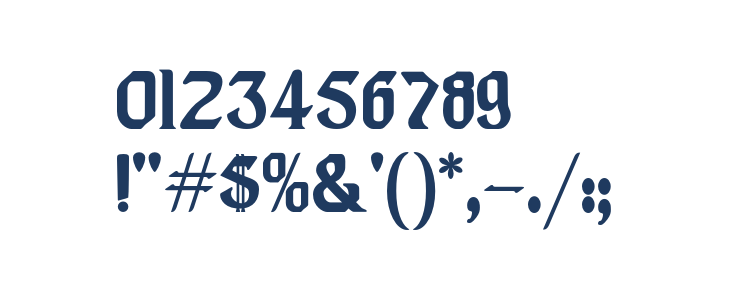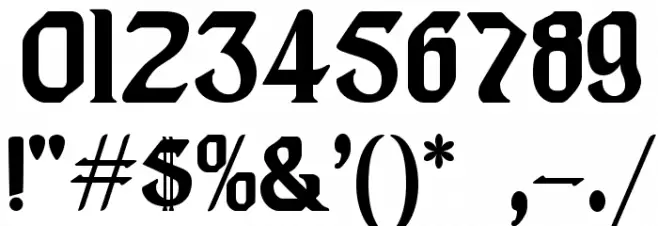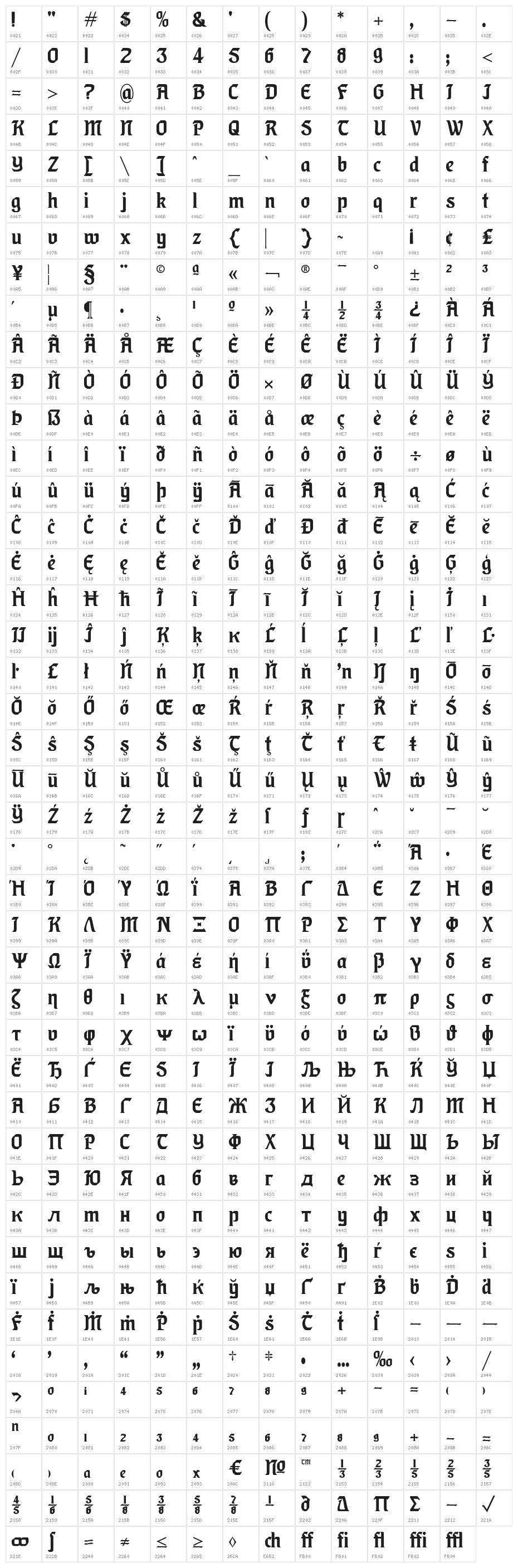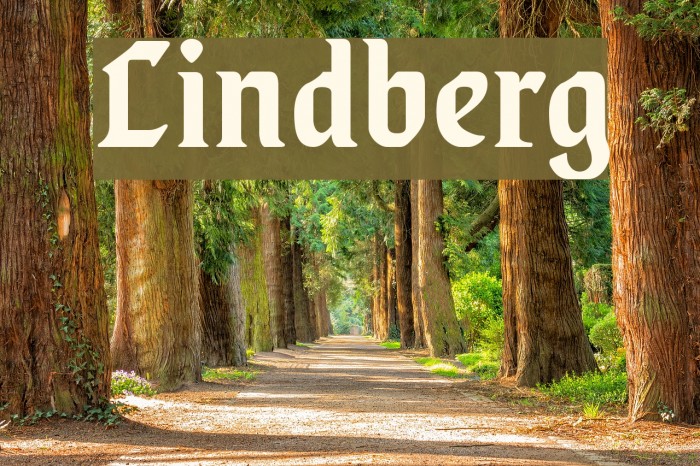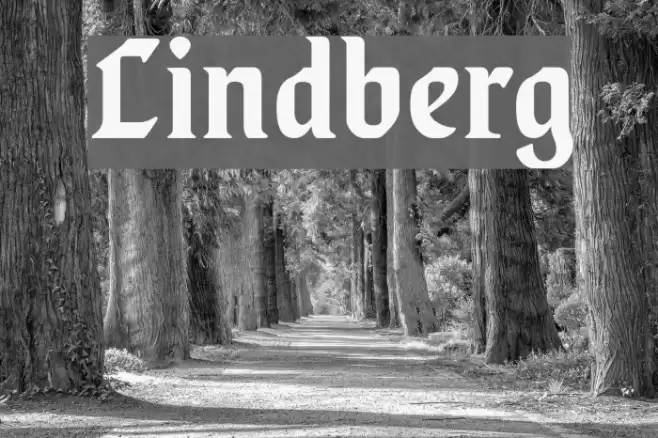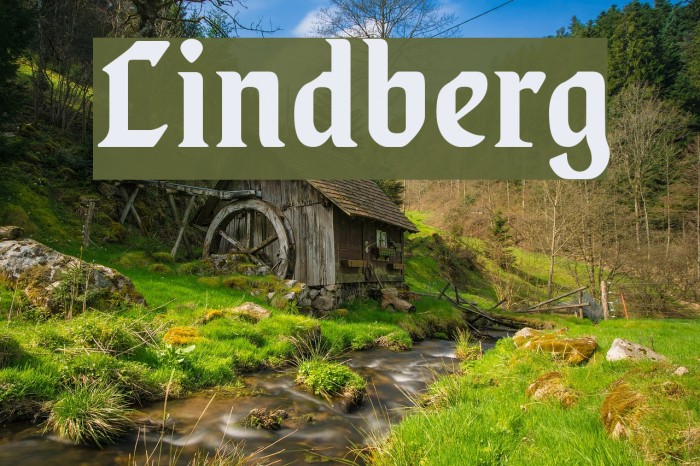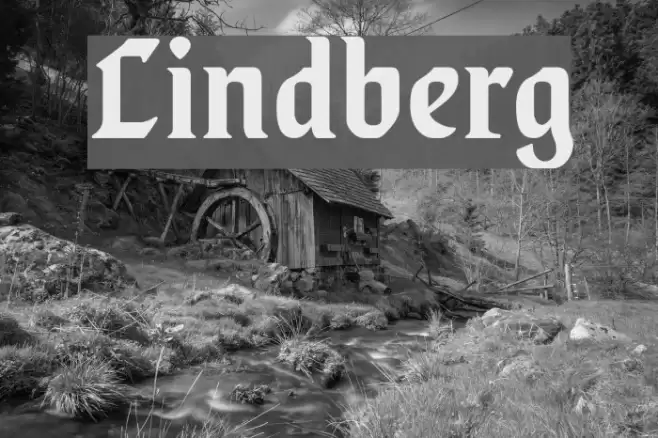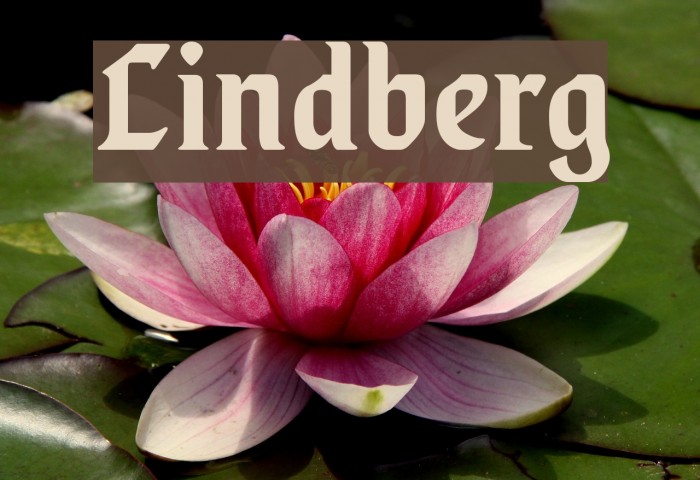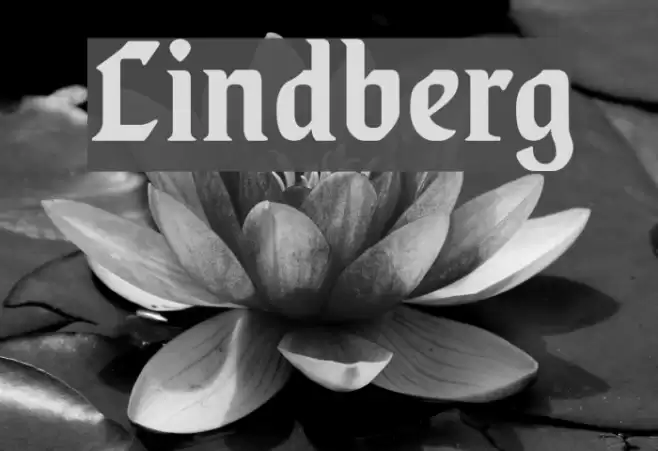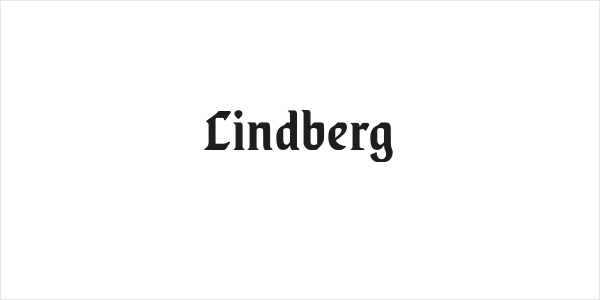
Lindberg Font
Lindberg Description
This font features a bold and striking design with a strong presence. The characters are crafted with sharp, angular edges and a distinct geometric style, reminiscent of traditional blackletter fonts but with a modern twist. The uppercase letters are particularly commanding, with a uniform height and consistent stroke weight that conveys a sense of authority and strength. The lowercase letters maintain this boldness, offering a cohesive look across both cases. Numerals are equally robust, ensuring readability and impact. Special characters are designed to match the overall aesthetic, providing a complete and versatile character set.
| Proposed Projects | Ideal for branding, posters, and headlines that require a strong, authoritative presence. |